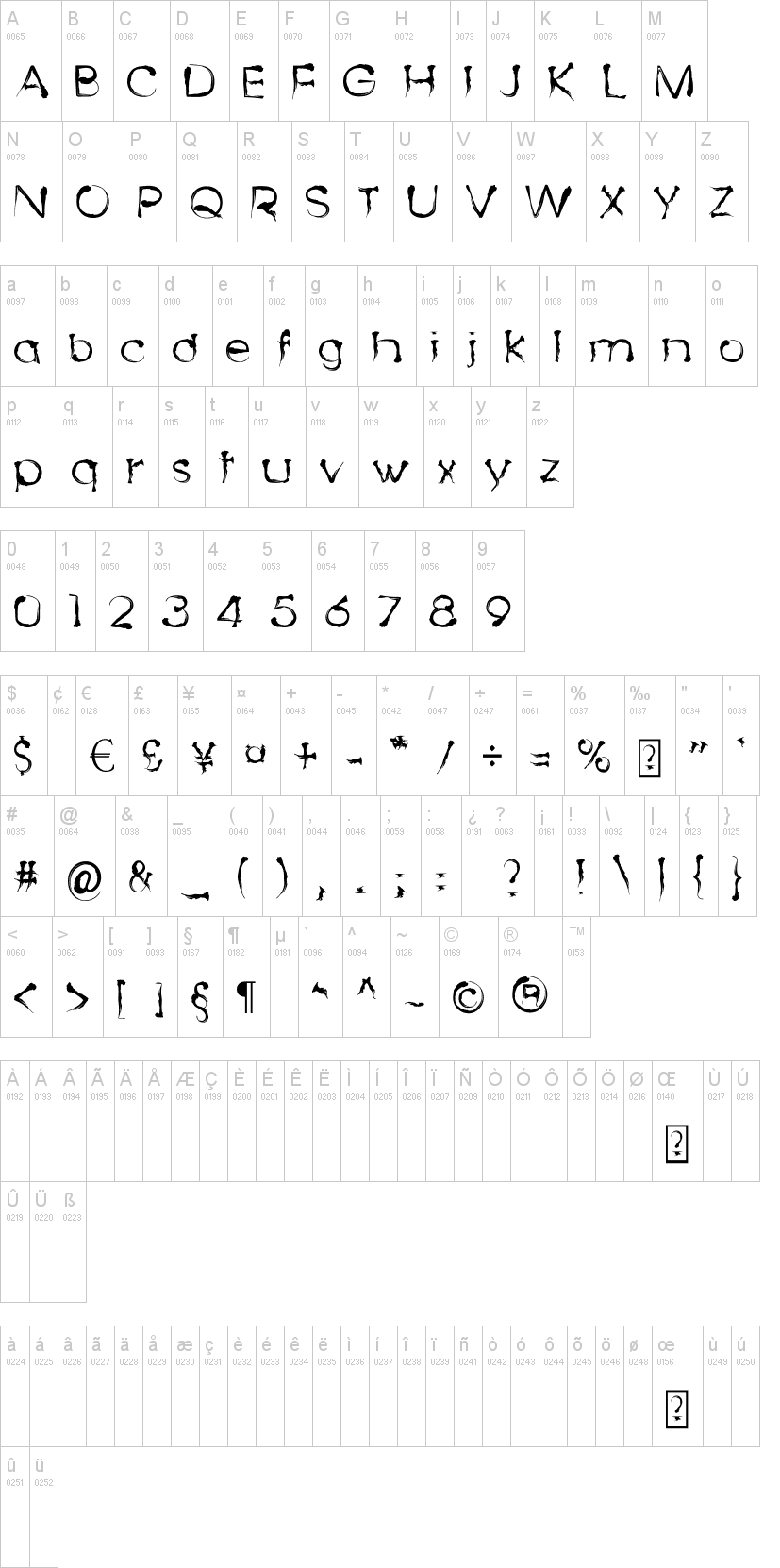
Note of the authorA subtly grungy, 'dingy' font. Font design by Ajith Rajan. Visit http://artvsaccounting.tk/fonts for more free fonts and for license information.